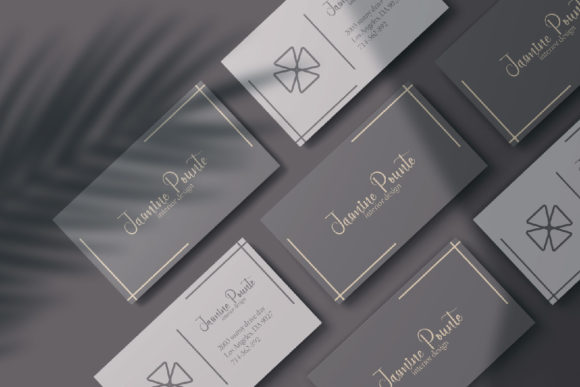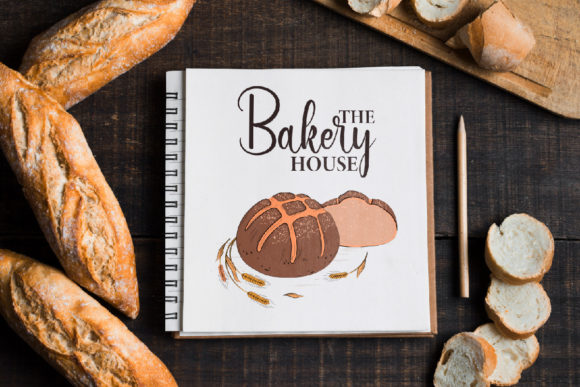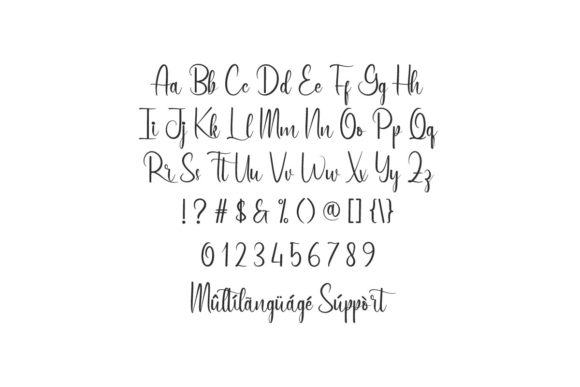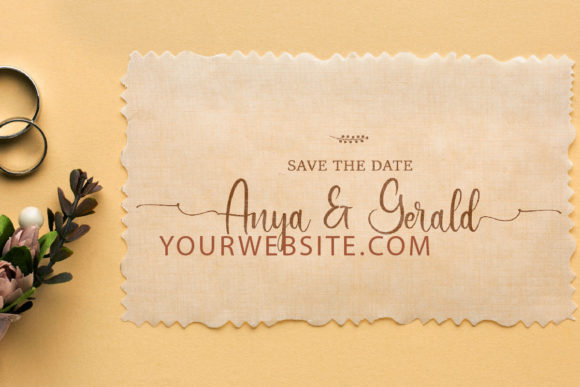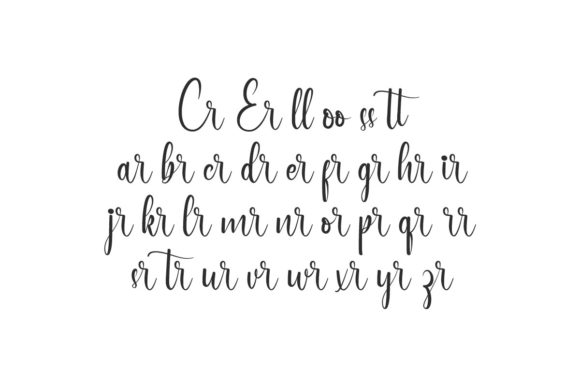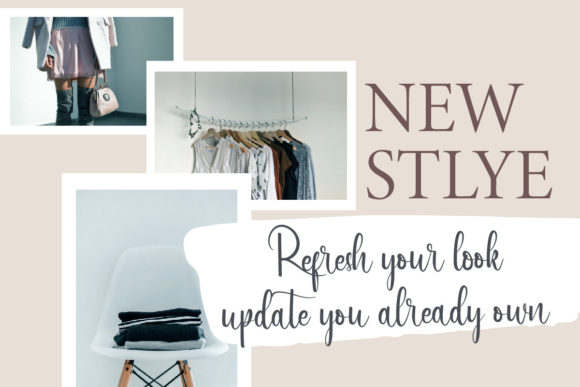
Discover the Elegance of Always There Font: Elevate Your Designs with Style
In the world of typography, the right font can make all the difference in transforming a design from ordinary to extraordinary. For designers, crafters, and anyone looking to add a touch of elegance to their projects, the Always There Font is a gem worth exploring. This lovely and chic script font has been making waves in the design community, and for good reason. Its versatility, beauty, and functionality make it an ideal choice for a wide range of applications, from product packaging and branding projects to magazine covers, social media graphics, and wedding designs.
The Beauty of Always There Font
Always There Font is more than just a pretty script; it’s a design solution that brings a level of sophistication and charm to any project. Its elegant strokes and flowing lines are perfect for creating visually appealing text that stands out. Whether you’re working on a luxury brand’s packaging, a wedding invitation, or a social media post, this font adds a touch of class and refinement that elevates your design.
One of the key advantages of Always There Font is its versatility. It’s designed to work beautifully across various mediums and applications. Here are some ways you can use this fantastic font:
- Product Packaging: Make your product stand out on the shelves with elegant packaging that reflects your brand’s personality.
- Branding Projects: Consistency in branding is crucial, and using a unique font like Always There can help establish your brand identity.
- Magazine Covers: Grab the attention of potential readers with a stunning magazine cover that features this beautiful script font.
- Social Media: Enhance your social media presence with graphics that pop, using Always There Font for quotes, announcements, or promotional content.
- Wedding Designs: Add a romantic touch to your wedding invitations, programs, or decor with this lovely script font.
Another significant advantage of Always There Font is that it is PUA (Private Use Area) encoded. This encoding means that you can access all the glyphs and swashes easily, allowing for greater flexibility and creativity in your designs. PUA encoding makes it simple to insert special characters, alternate glyphs, and swashes, enabling you to customize your text and make it truly unique.
Why Designers and Crafters Love Always There Font
Designers and crafters are always on the lookout for fonts that are not only beautiful but also practical and versatile. Always There Font checks all these boxes and more. Here are a few reasons why it’s becoming a favorite:
- Ease of Use: With its PUA encoding, you can easily access a wide range of glyphs and swashes, making it simple to use and customize.
- High-Quality Design: The font is crafted with attention to detail, ensuring that it looks great in both digital and print formats.
- Time-Saving: Having access to so many glyphs and swashes means you can create complex designs without the need for extensive editing or additional fonts.
- Support for Creative Projects: Whether you’re working on a commercial project or a personal craft, Always There Font provides the elegance and sophistication needed to make your project shine.
Always There Font is a versatile, elegant, and highly functional script font that can elevate any design project. Its beauty, combined with its practical features like PUA encoding, makes it an excellent choice for designers and crafters looking to add a touch of sophistication to their work. Whether you’re creating product packaging, branding materials, social media graphics, or wedding designs, this font is sure to impress. Explore the possibilities with Always There Font and discover how it can enhance your designs and help you achieve your creative goals.